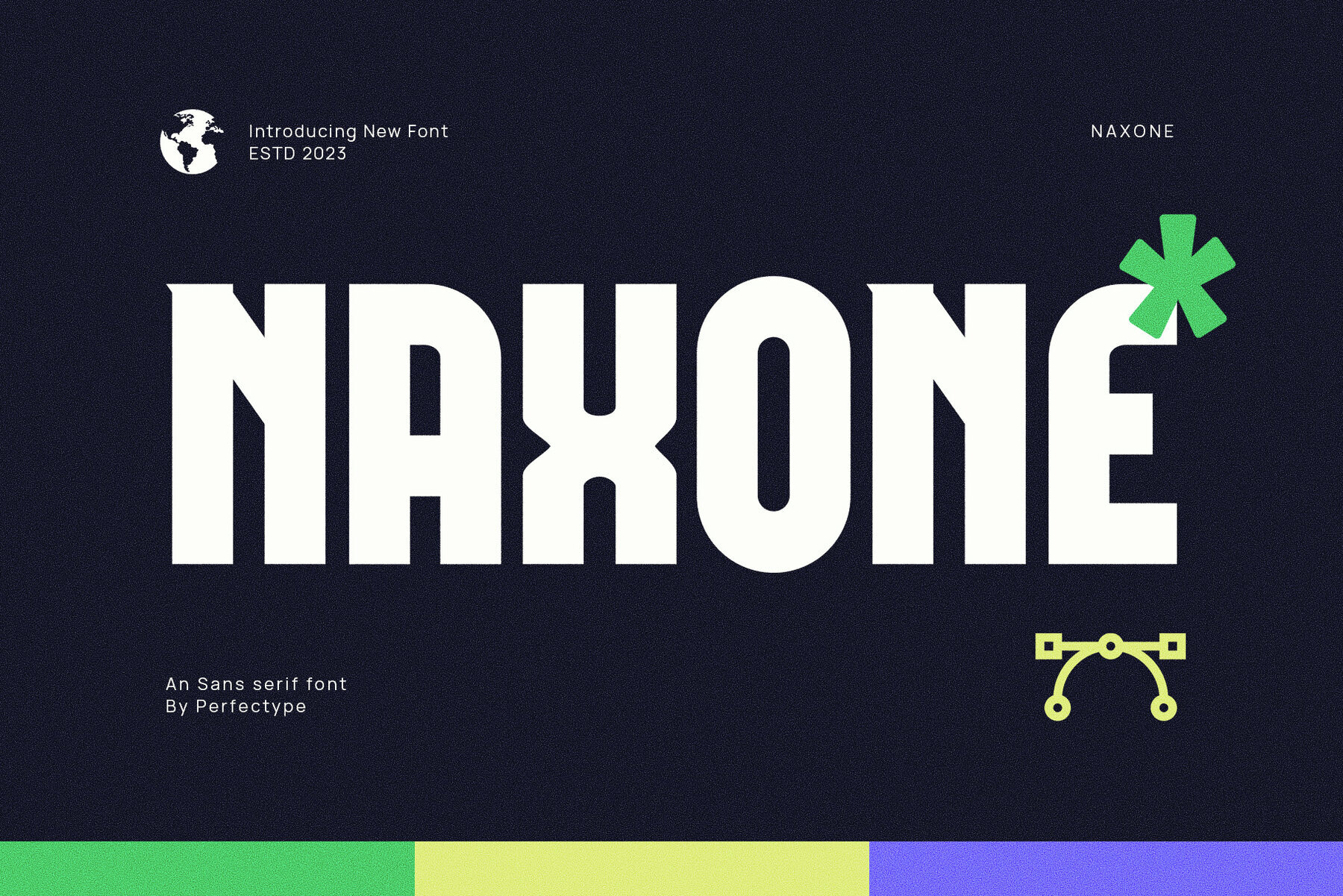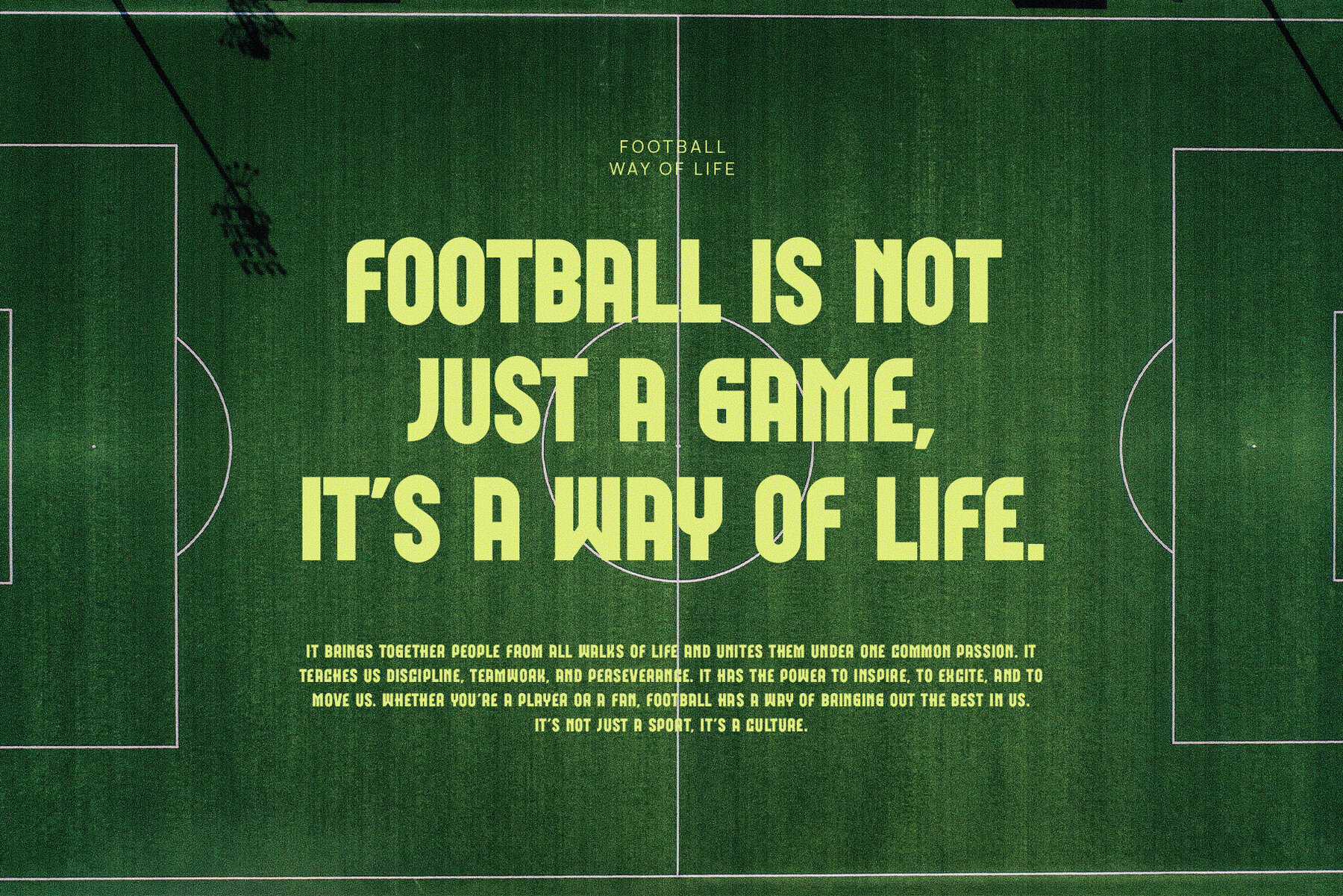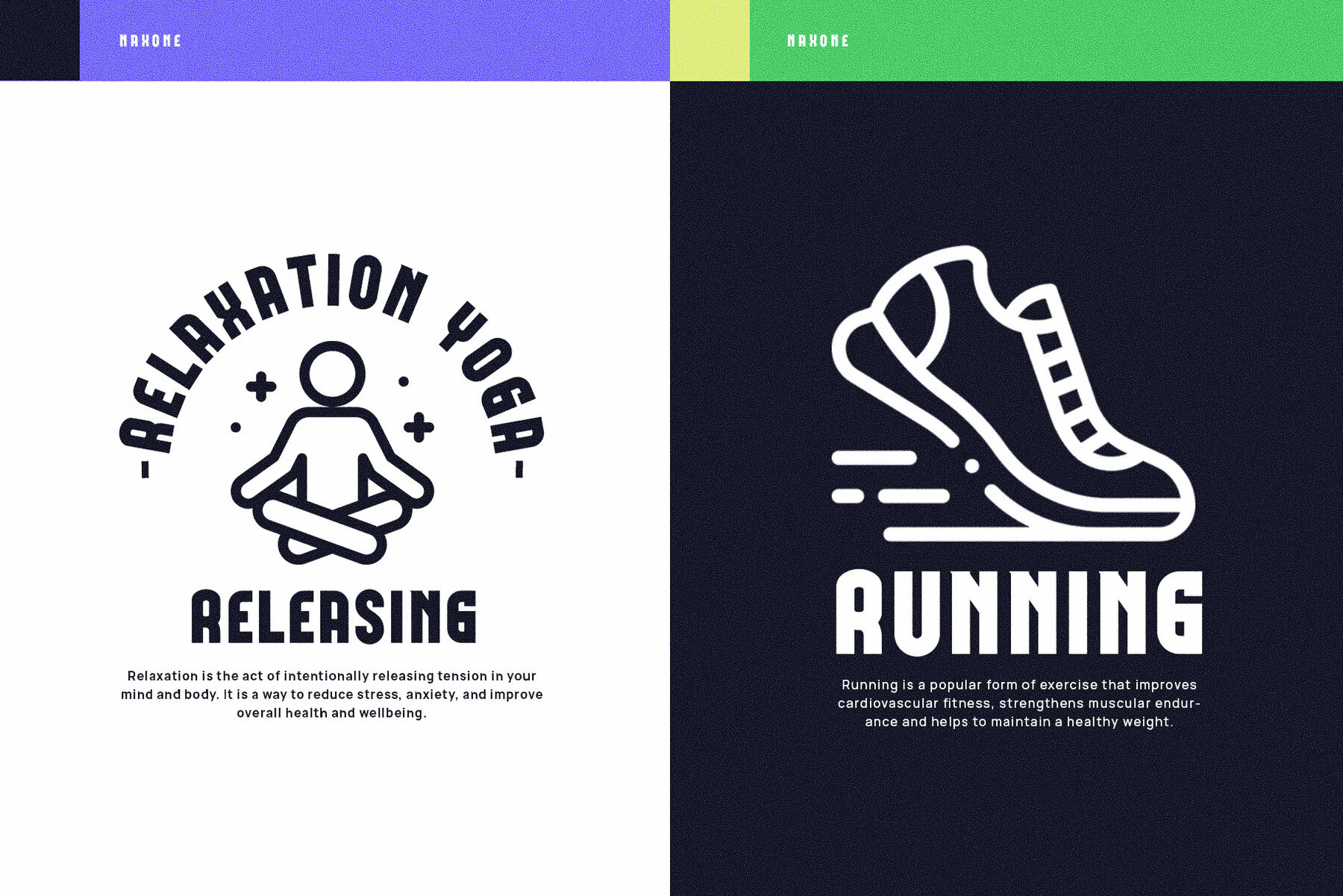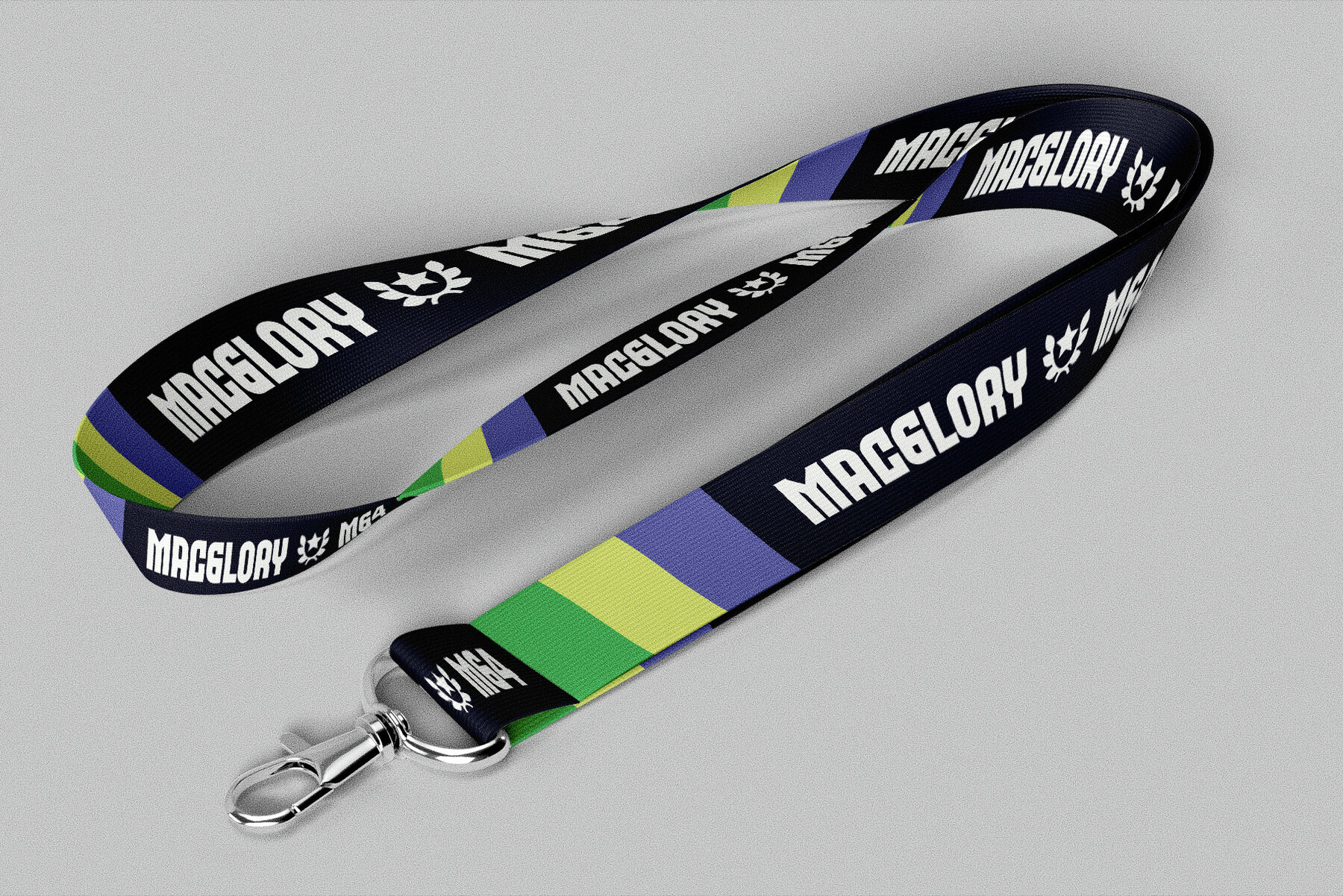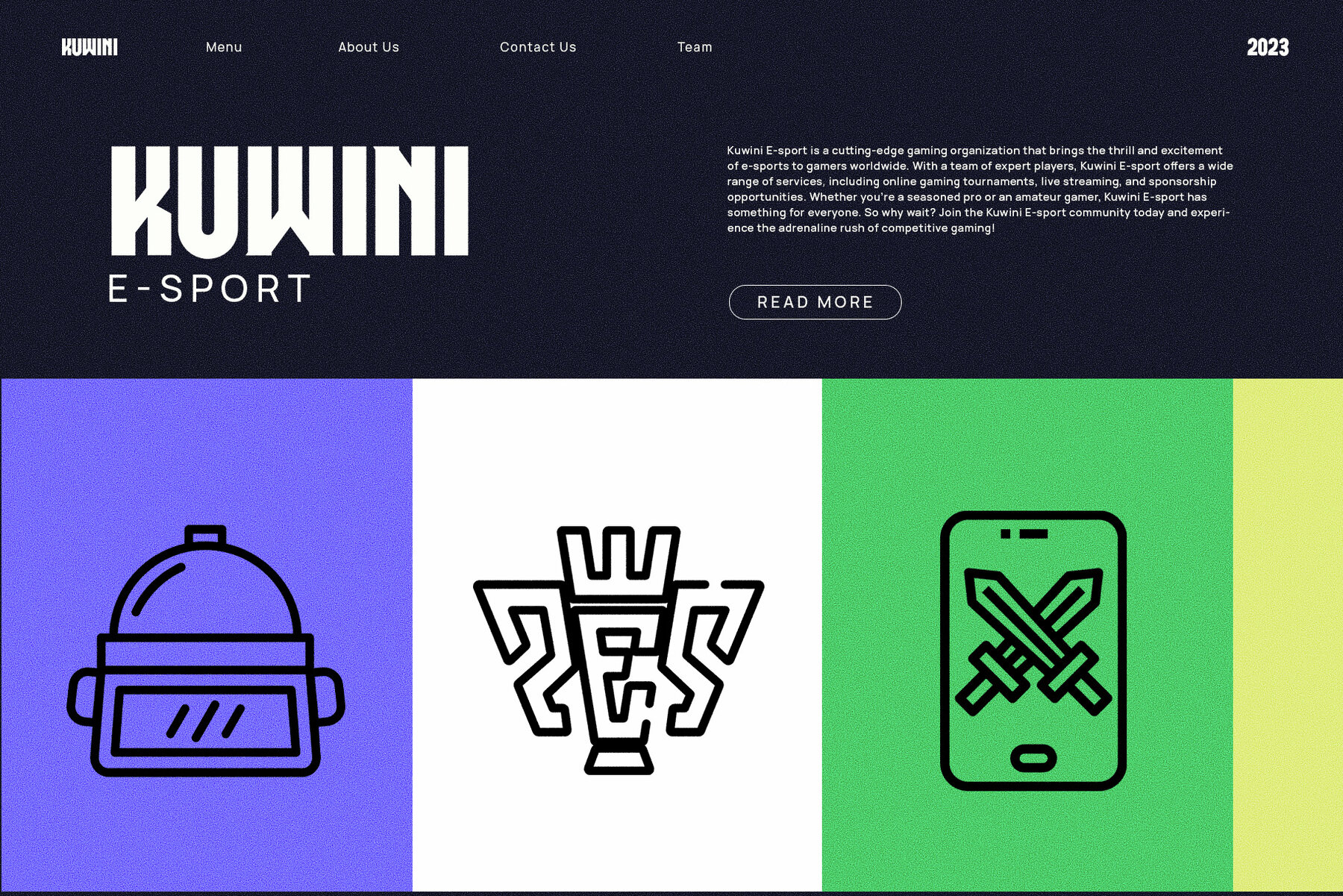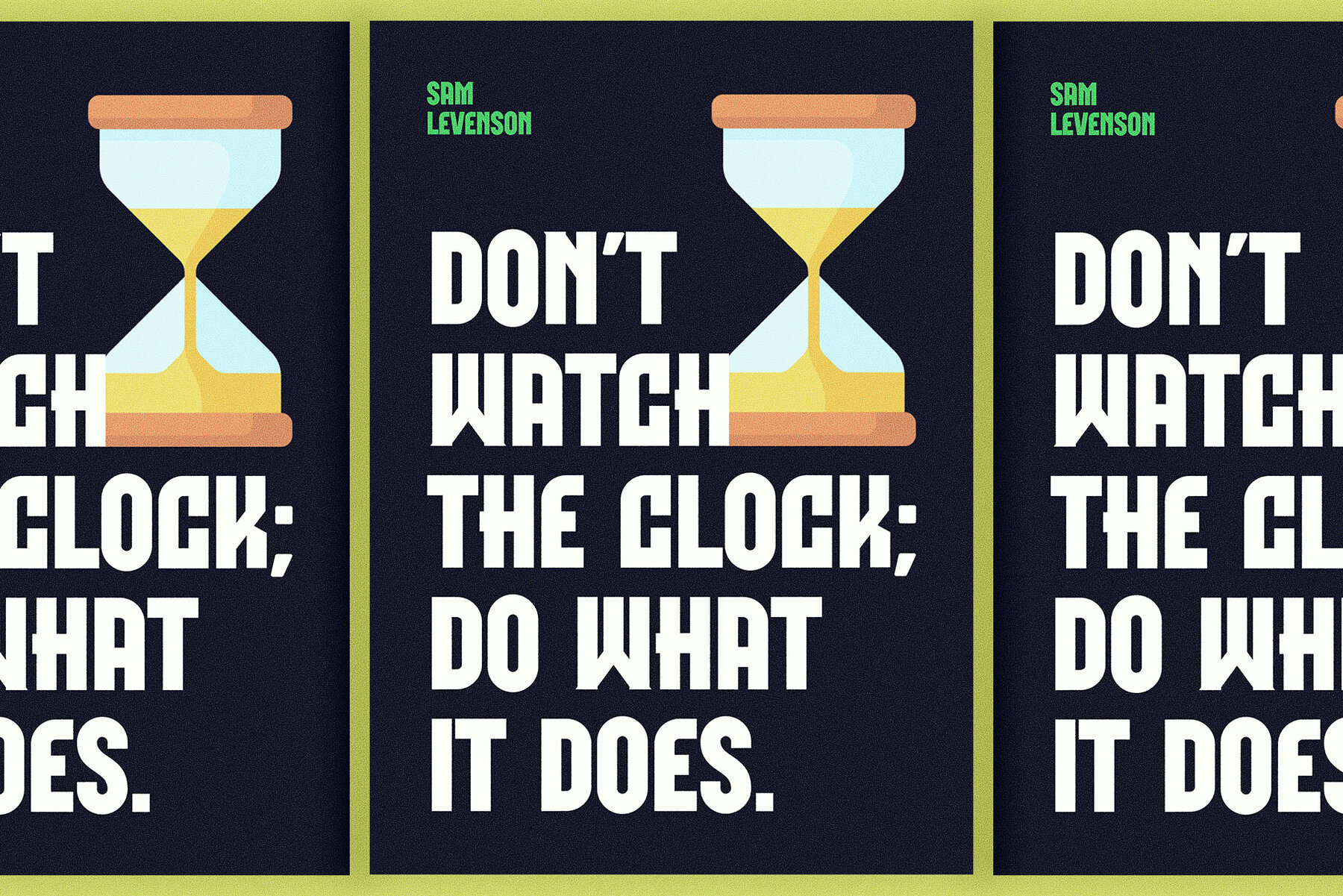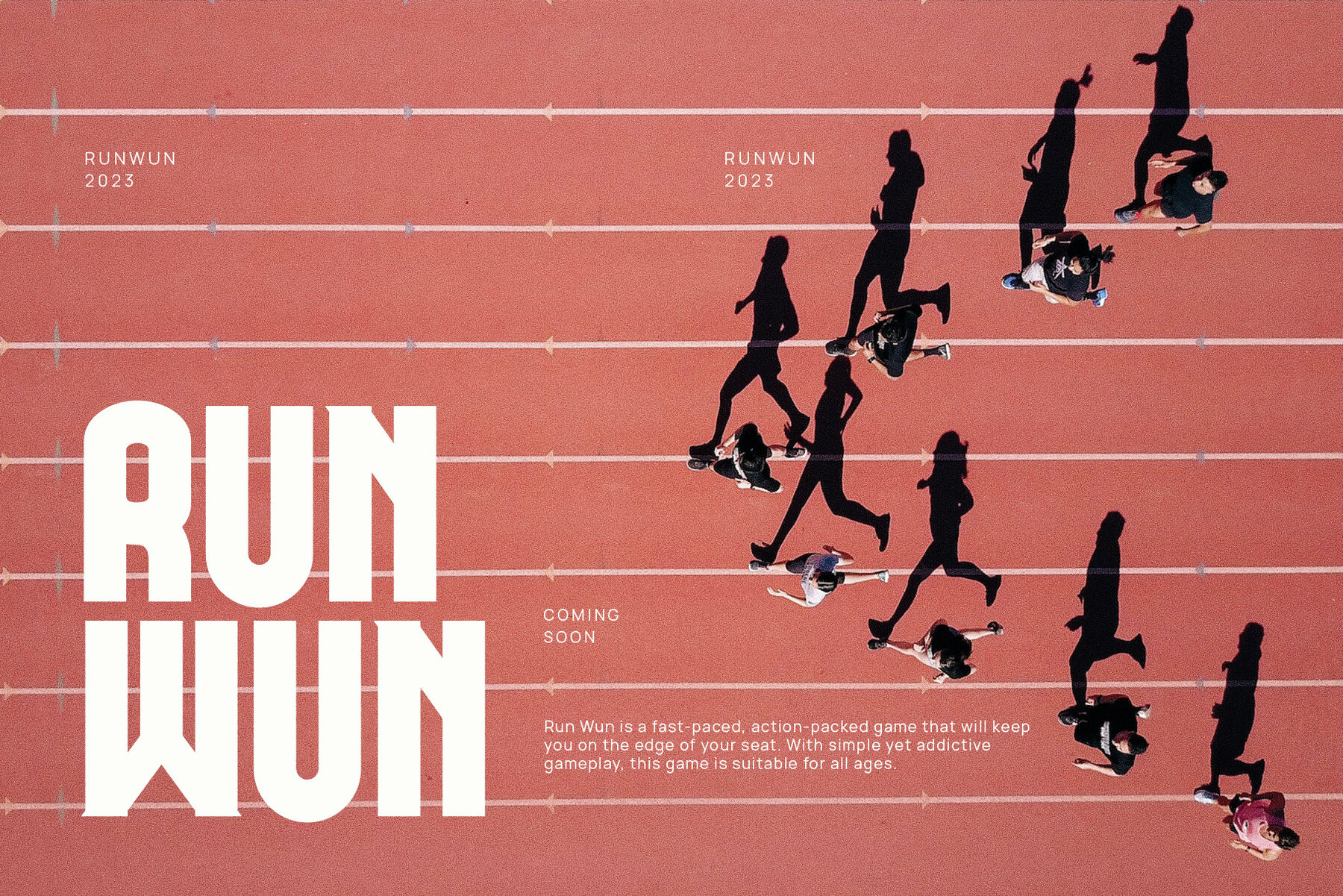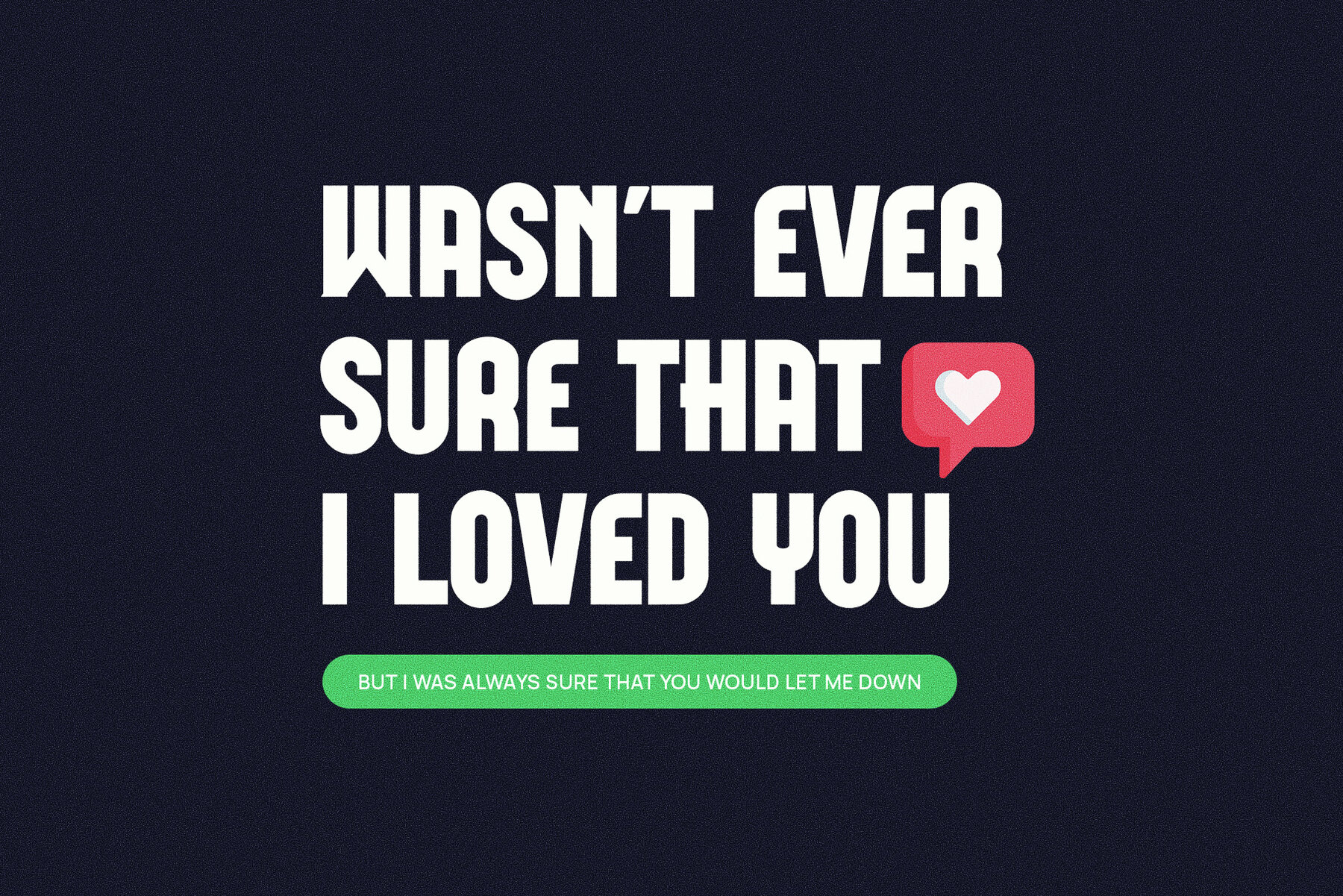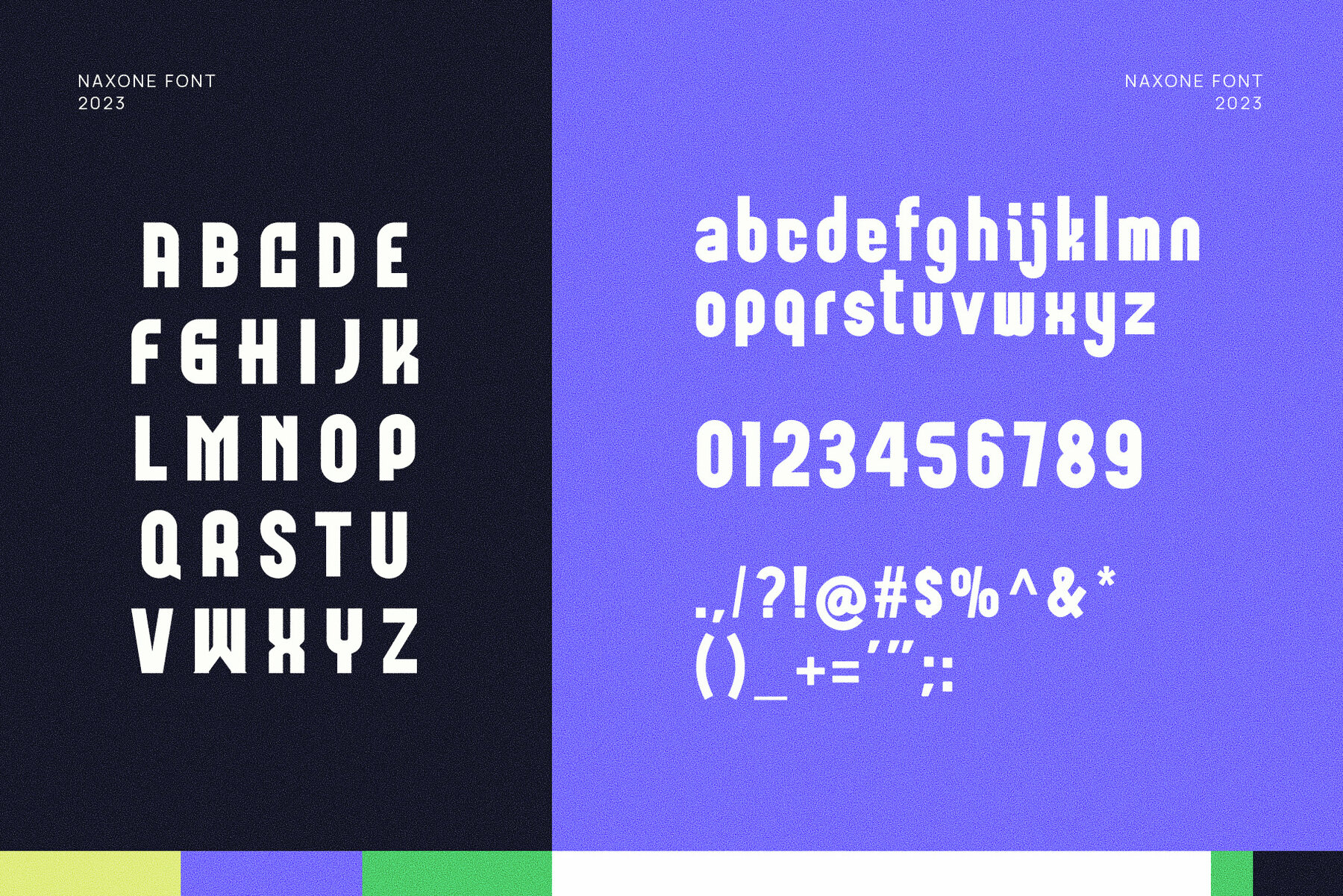
Naxone Font
Naxone Regular
Perfectype Studio leaves no stone unturned as they unveil their new sans serif font – Naxone. This font mirrors an exquisite fusion of balance and high readability. Boasting a clean-cut design and breathing an air of detailed philosophy, Naxone is the perfect anecdote for every cornerstone of your branding requirements. Designed with an unyieldingly clean aesthetic, Naxone is the ideal font for graphic designers and marketing firms who wish to inject neatness, and an extra layer of professionalism into their designs. Trust Naxone to assuage all your graphic design needs. Designed by Perfectype StudioUnveiling Naxone: The Epitome of Balance and Readability for Today's Graphic Designers
Outstanding balance and high readability
Detail-oriented philosophy
Clean and neat design
Ideal for branding purposes